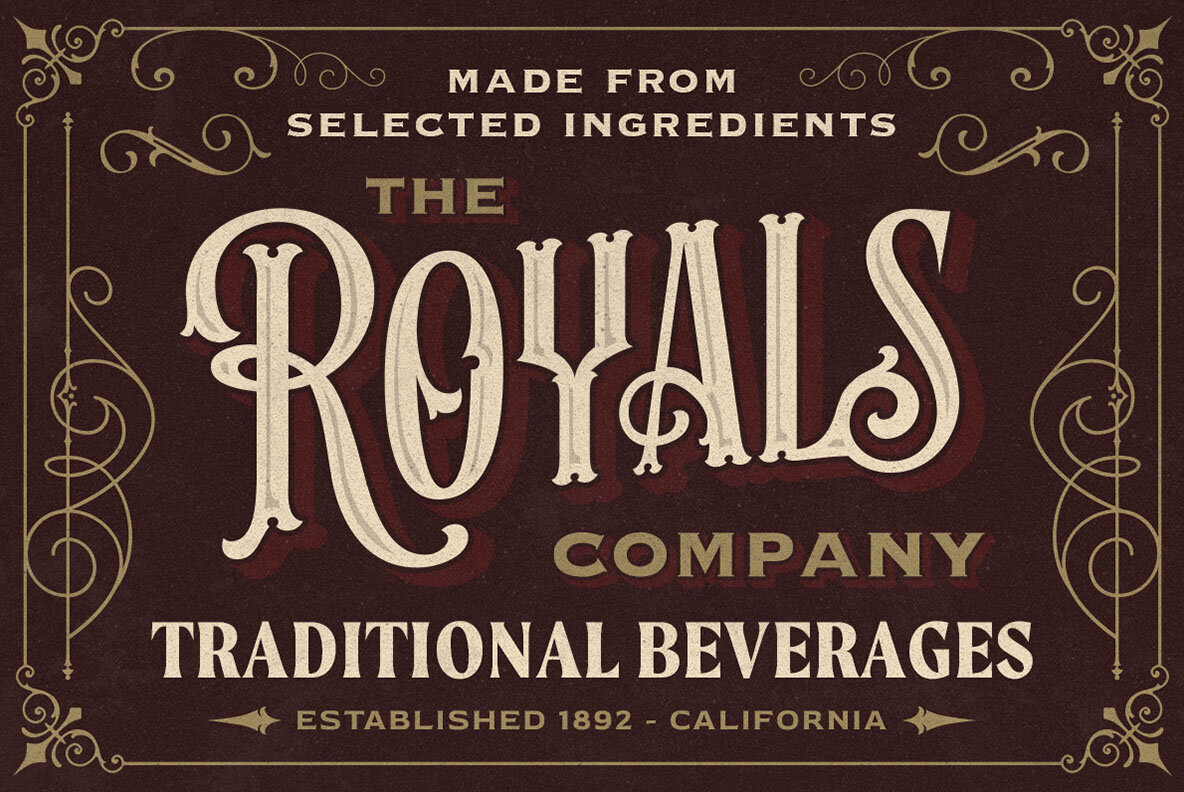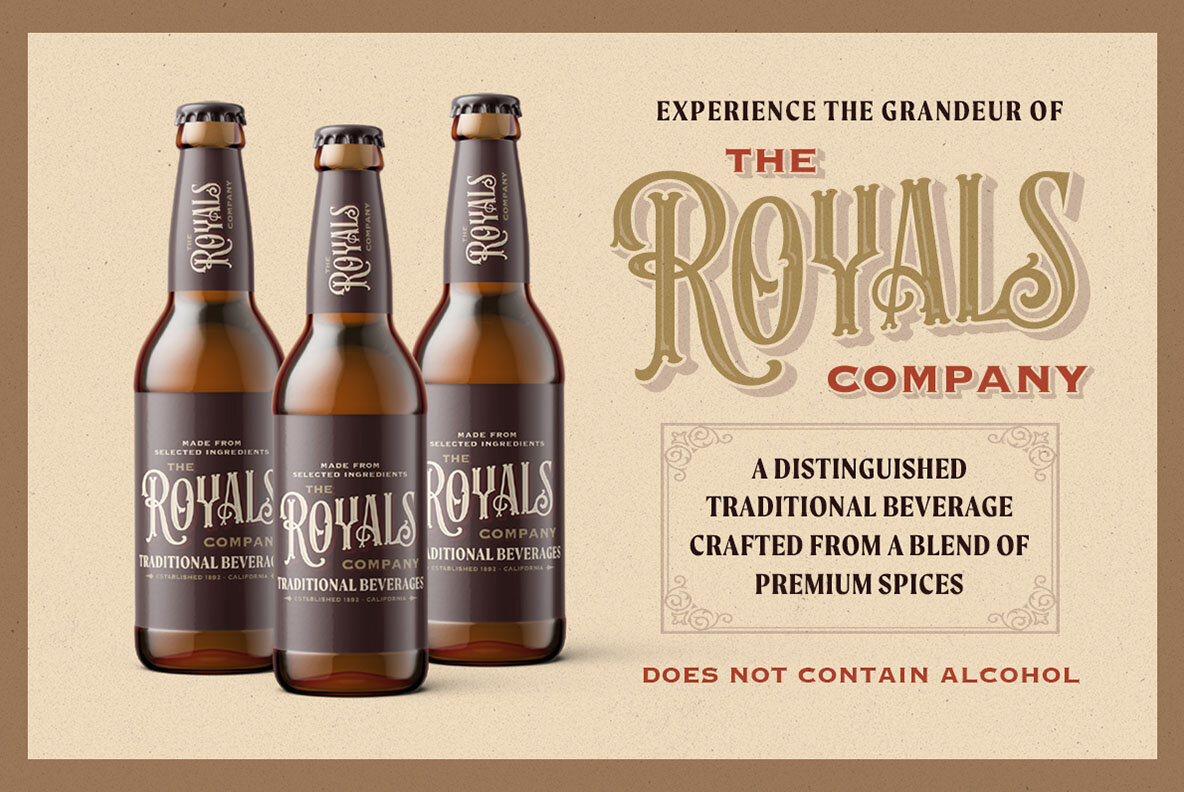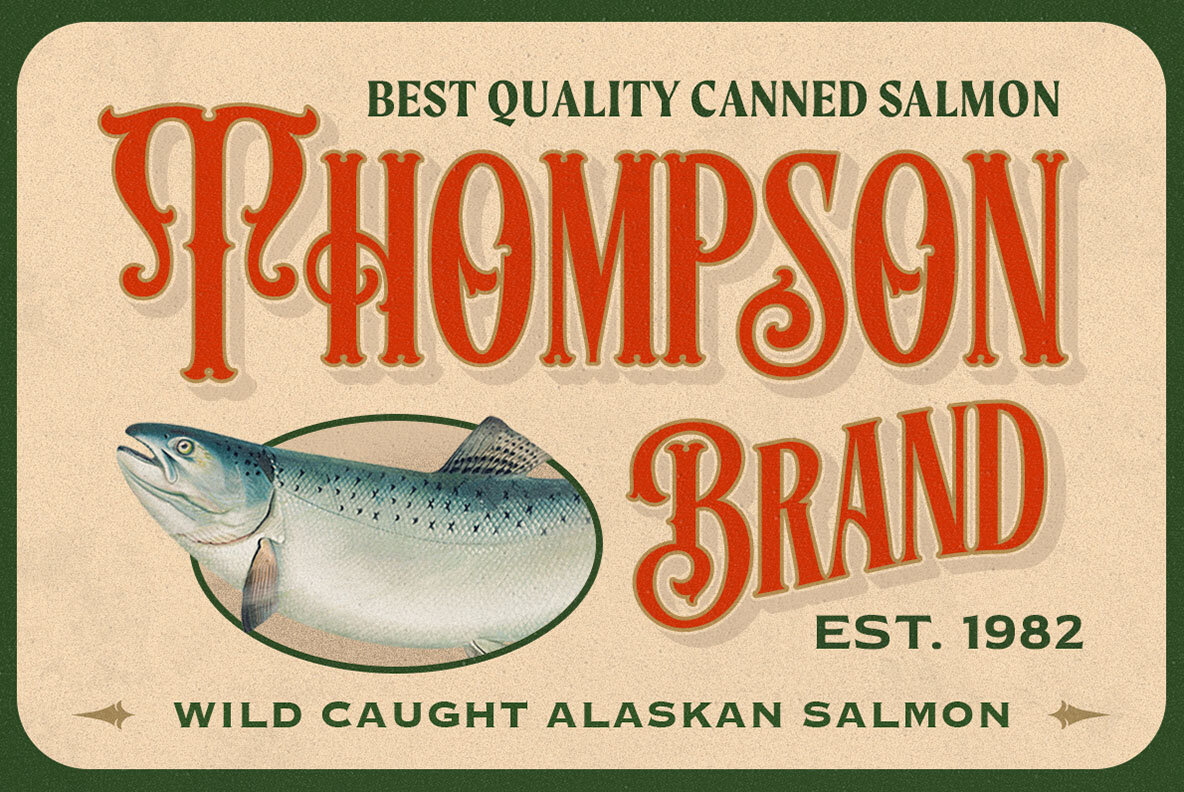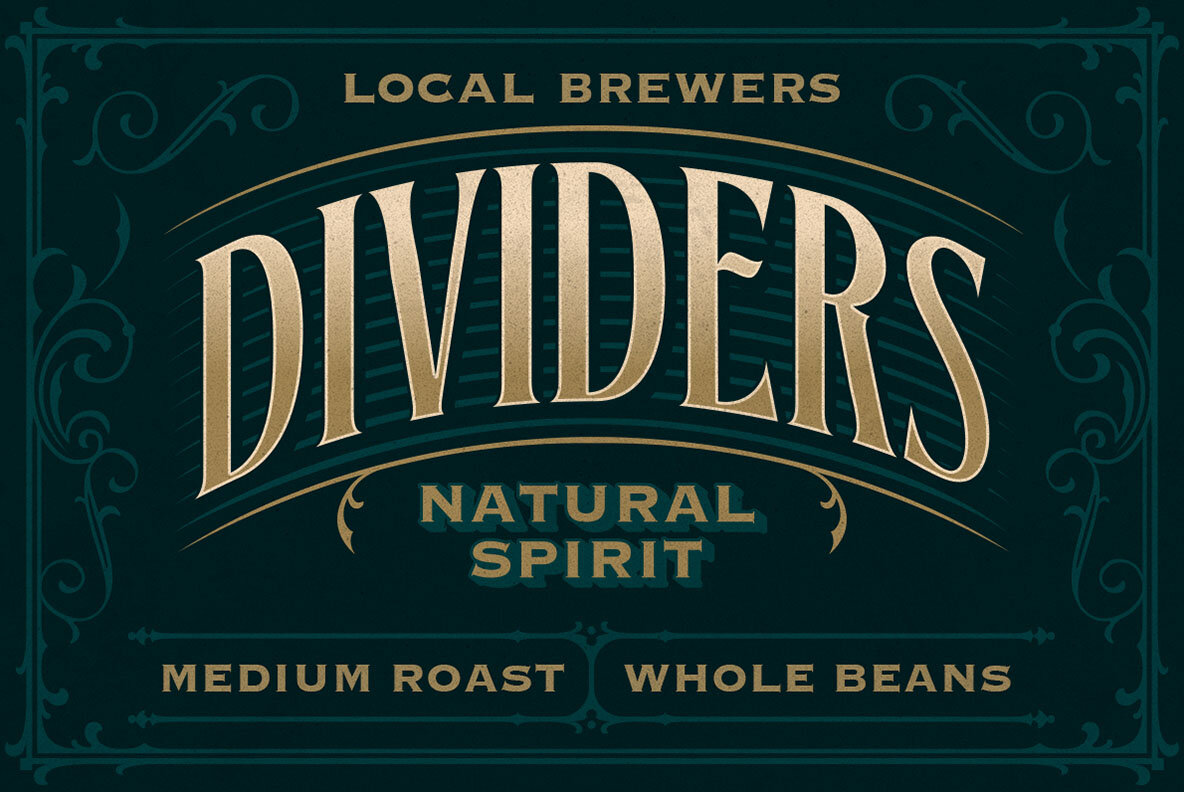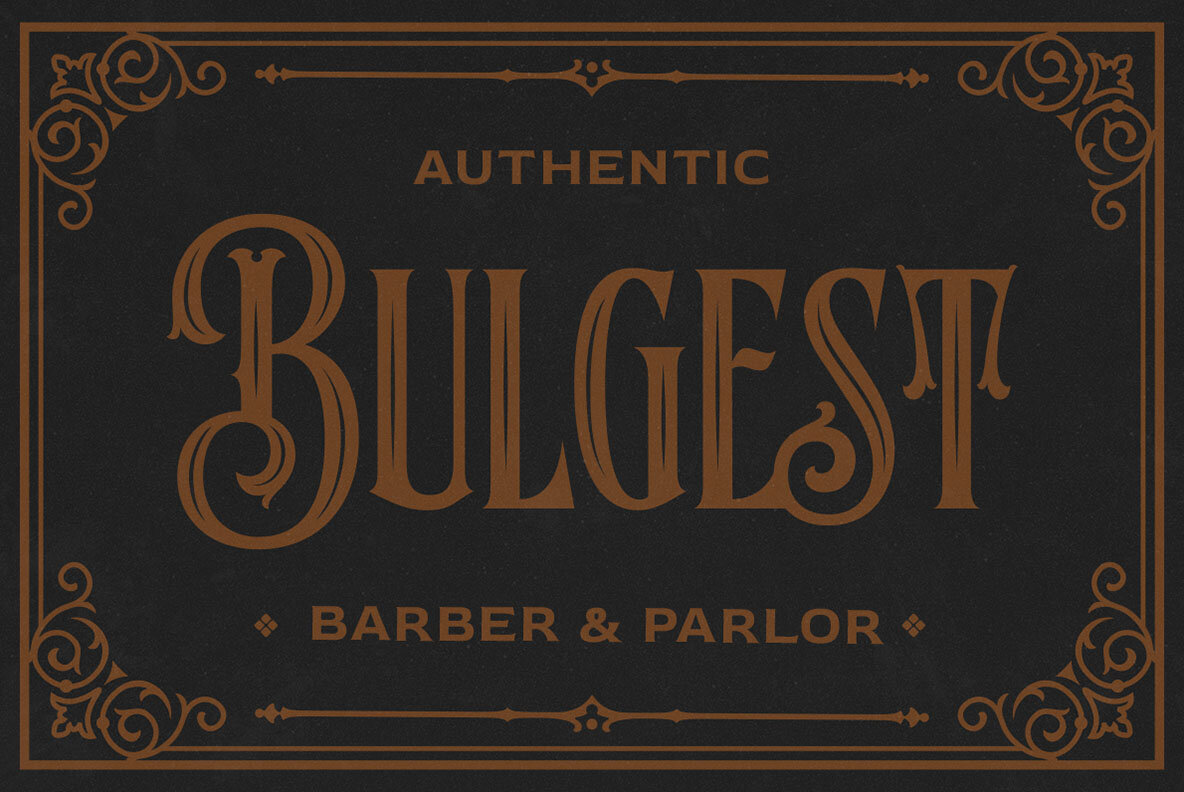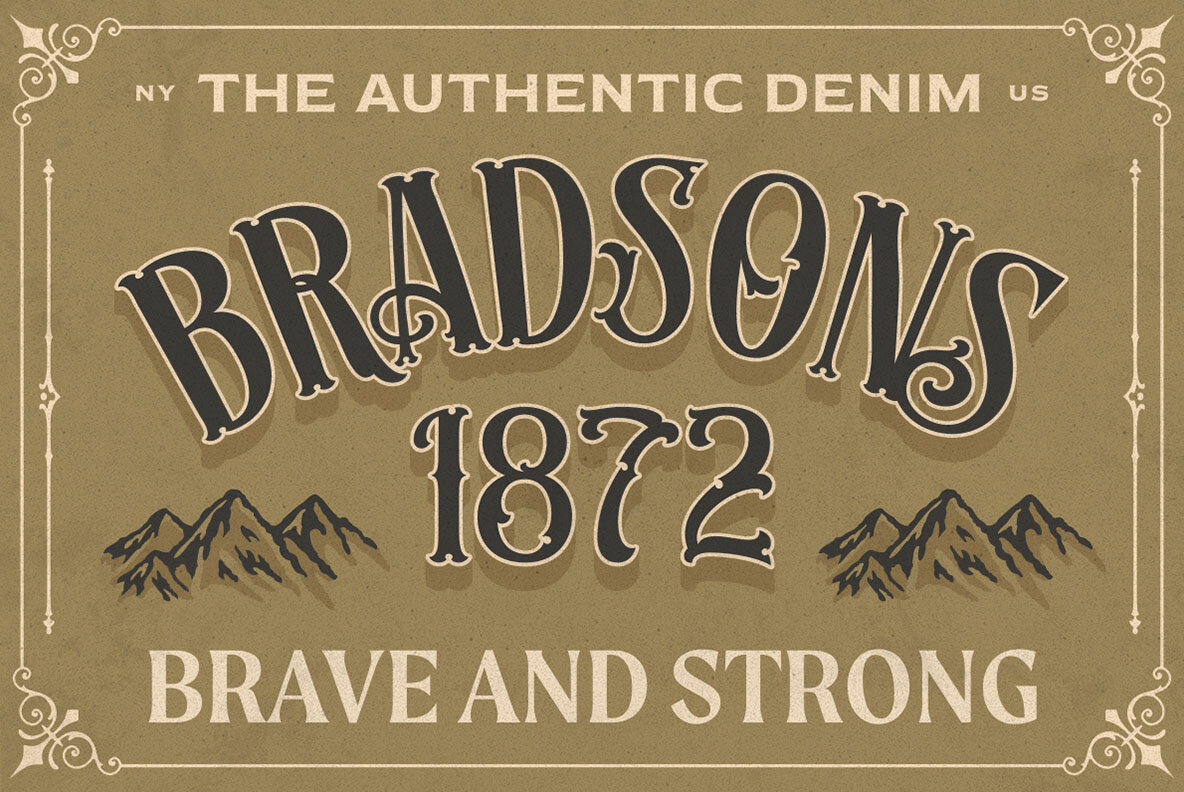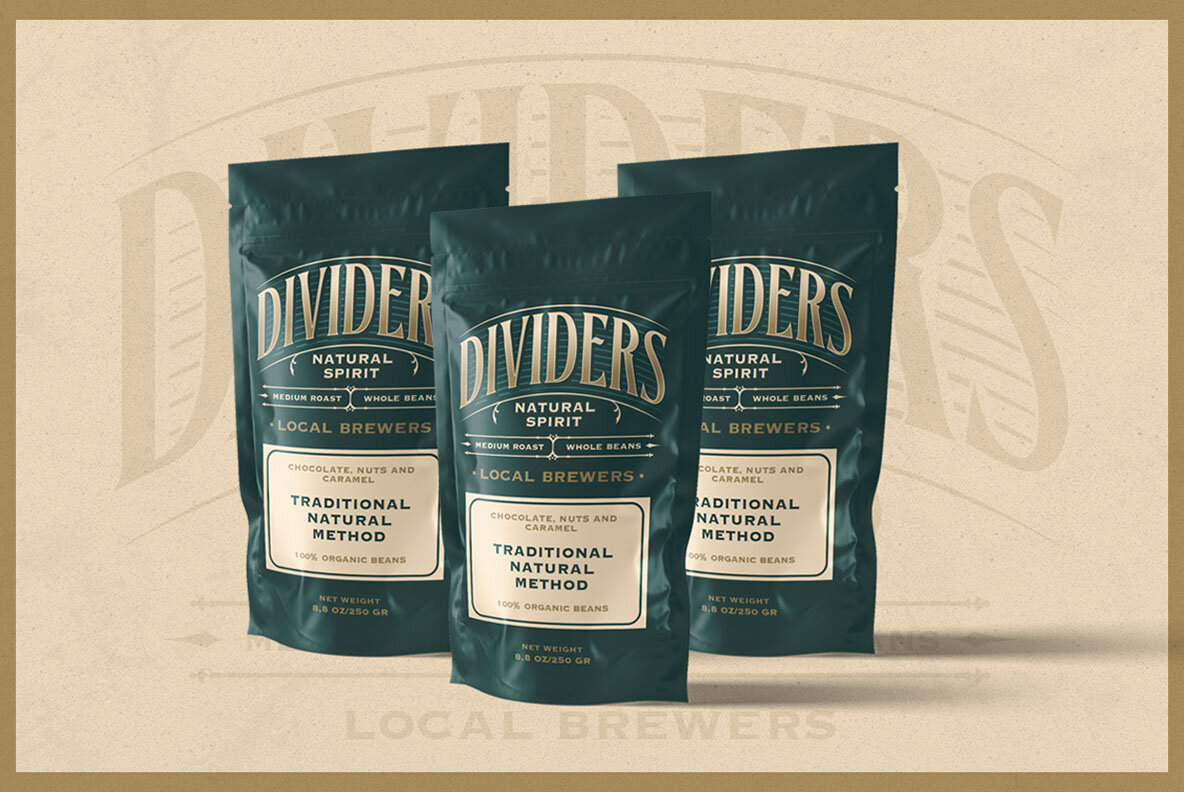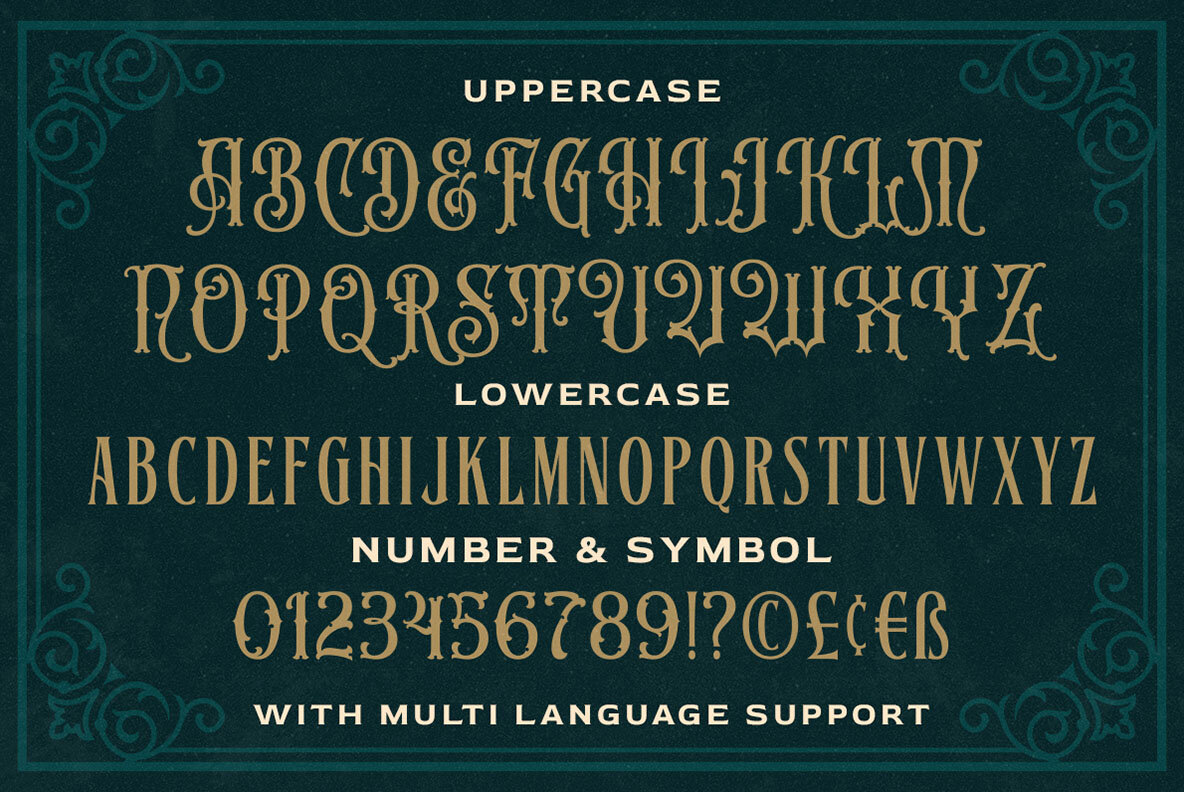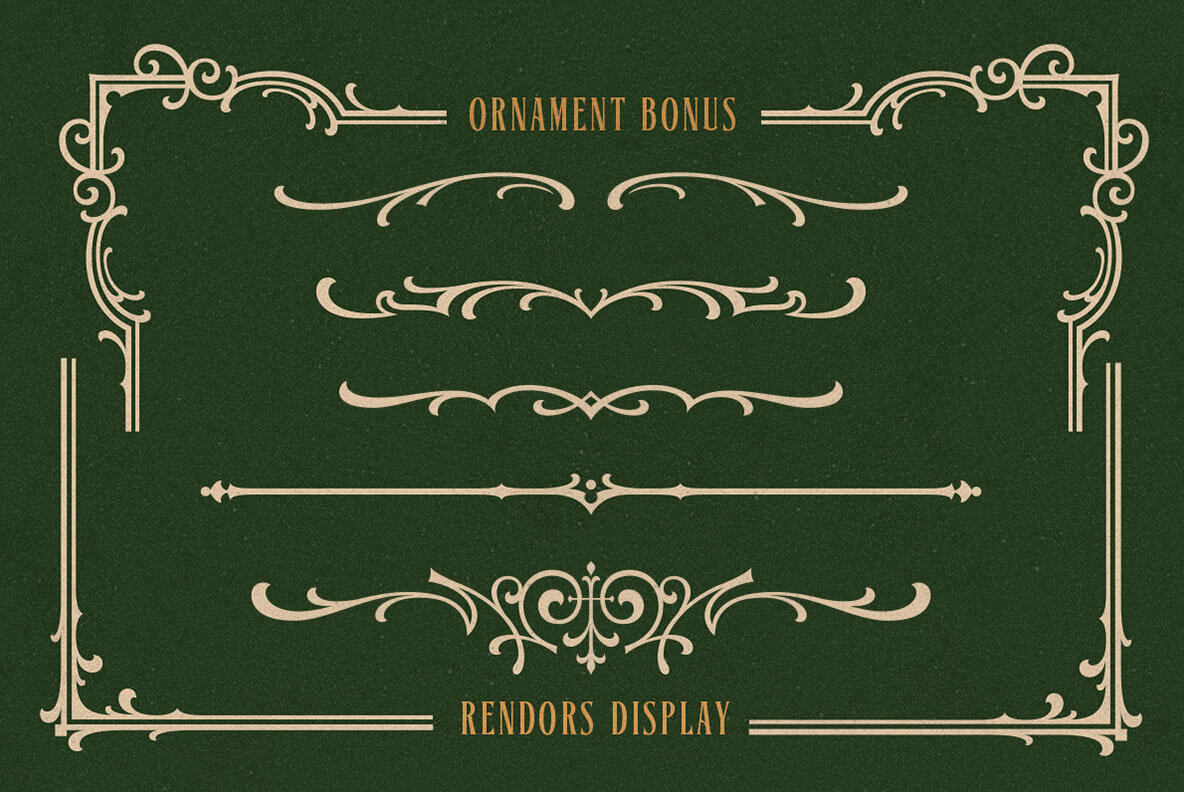
Ronders Font
Rendors Regular
Ronders is a typeface crafted by Letterhend Studio, inspired by vintage signage and art. Combining a Victorian flair with a bold, solid appearance, this font is perfect for headlines, logotypes, apparel, invitations, branding, packaging, and advertising projects with an old-school or retro theme. Maximize the font's potential by using programs that support OpenType features and Glyphs panels, such as Adobe apps and Corel Draw, to access all Glyph variations.Ronders: Vintage Typeface with a Bold, Victorian Touch